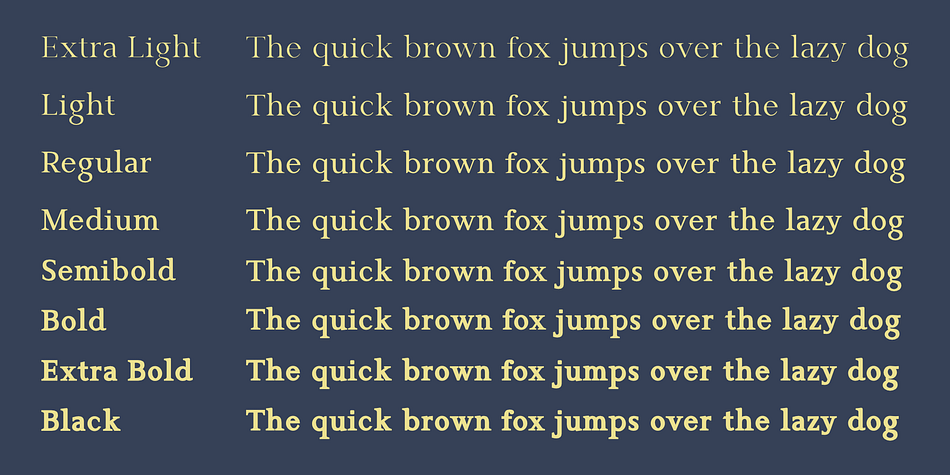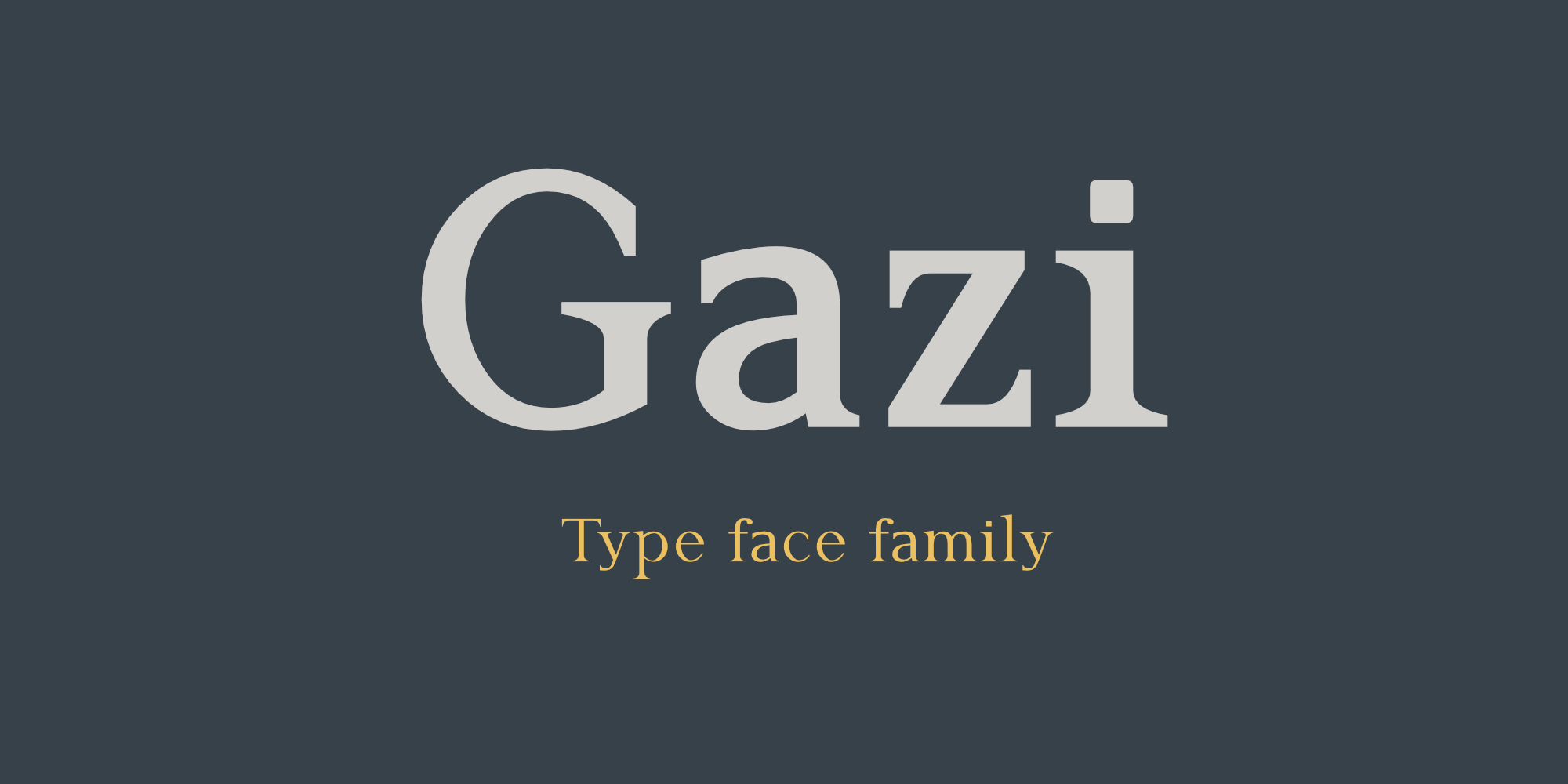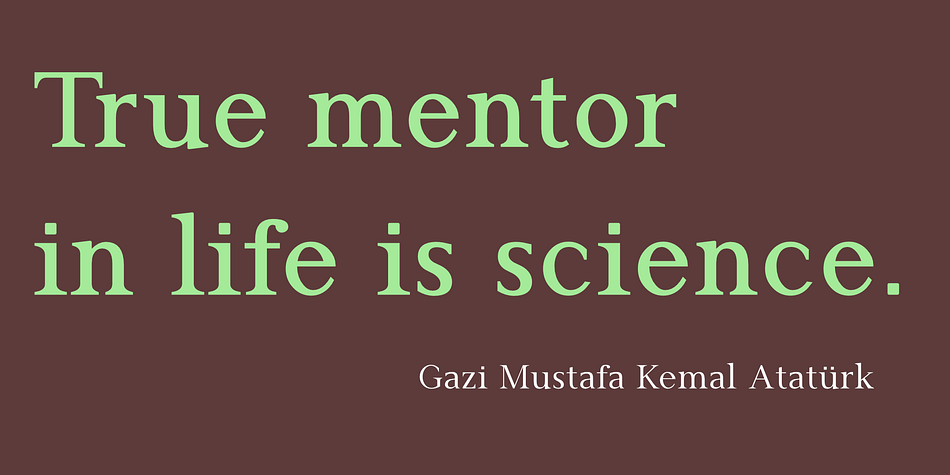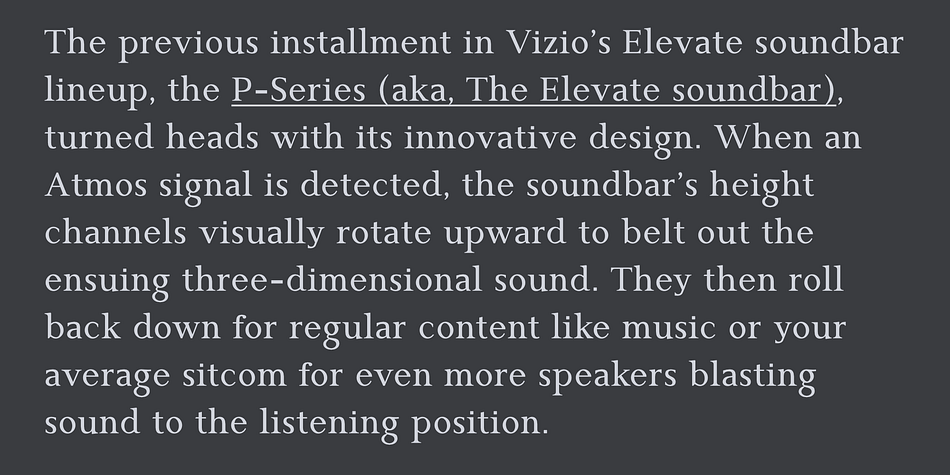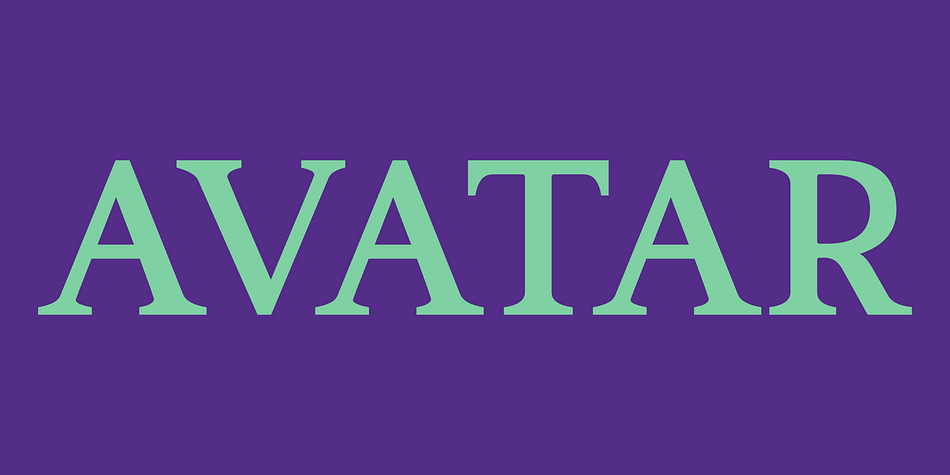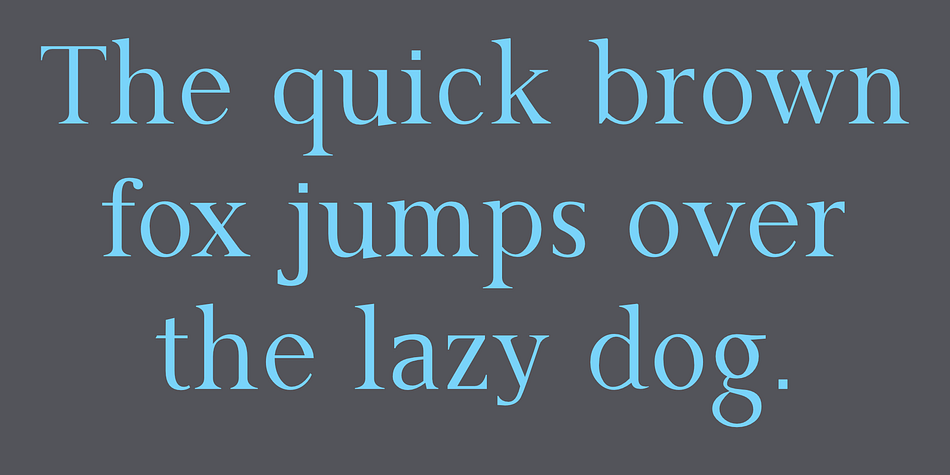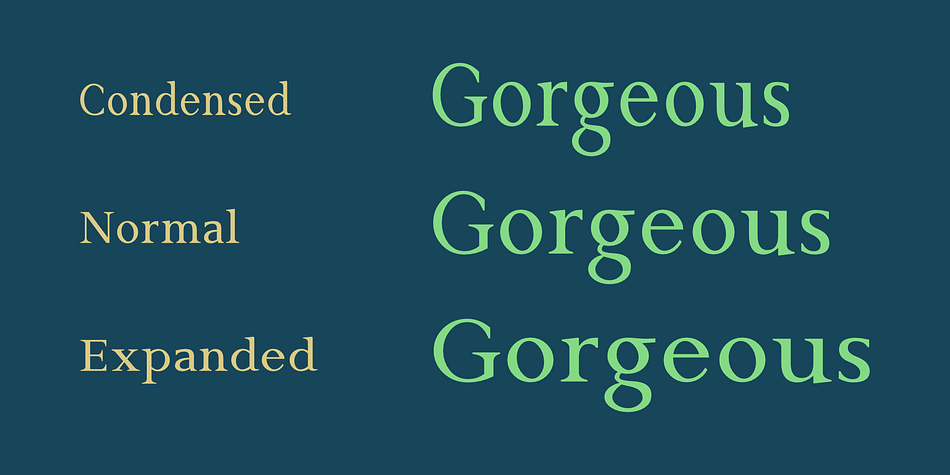
Gazi
Designed by İsmail AYDIN, Gazi is a serif font family. This typeface has forty-eight styles and was published by Fontuma.
Gazi is the honorary title given by the state to the commanders who defeated the enemy by showing extraordinary benefits. This title was first given to Mustafa Kemal Atatürk by the Turkish Grand National Assembly on September 19, 1921. Gazi font was designed for Mustafa Kemal Atatürk, who founded the Turkish Republic. This type face consists of two families::
▪ Gazi: Font family with Latin alphabets
▪ Gazi Pro: Font family including Latin and Arabic alphabets
The Gazi font family is ideal for those looking for a new and aesthetic serif font. This font with modern lines can be used in all broadcast and printing areas. Gazi font will meet your needs and expectations in terms of the number of glyphs and the languages it supports. The font family includes many open type features, as well as some ligatures, and many currency symbols.